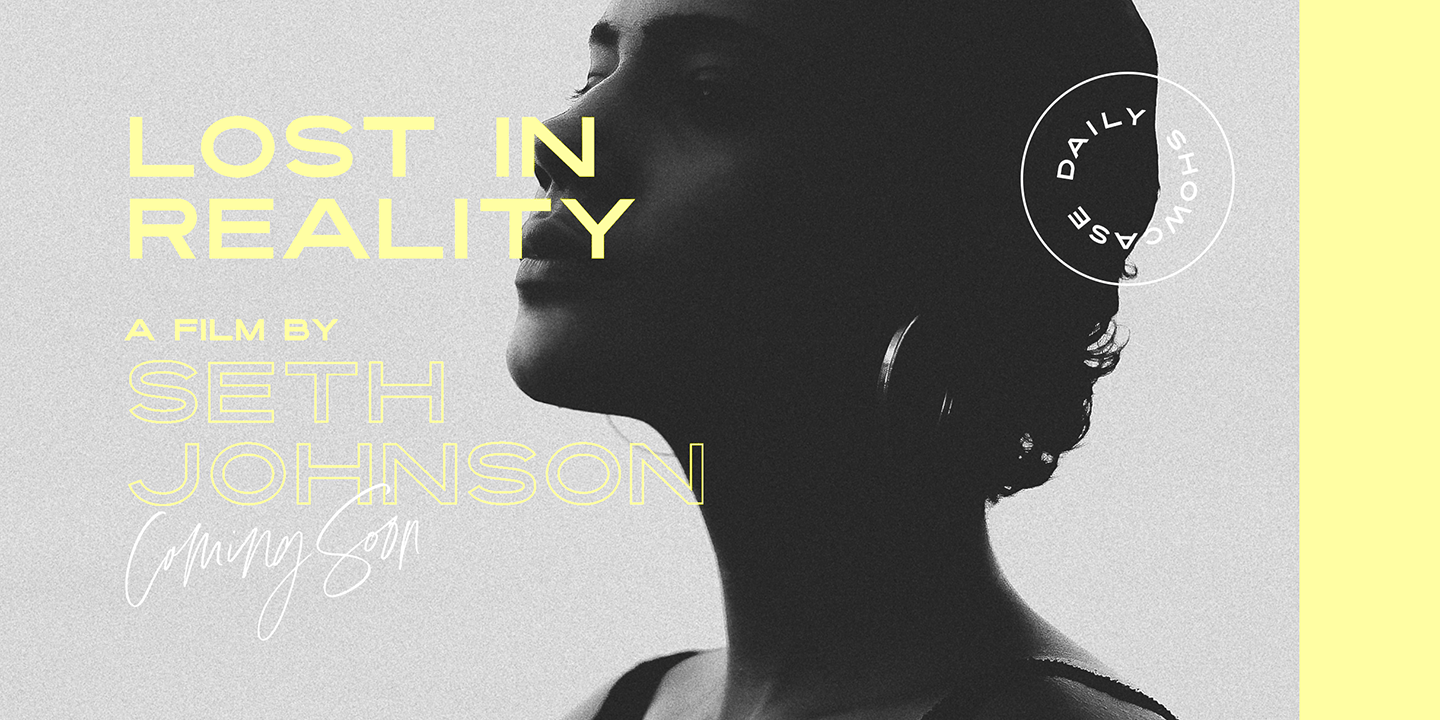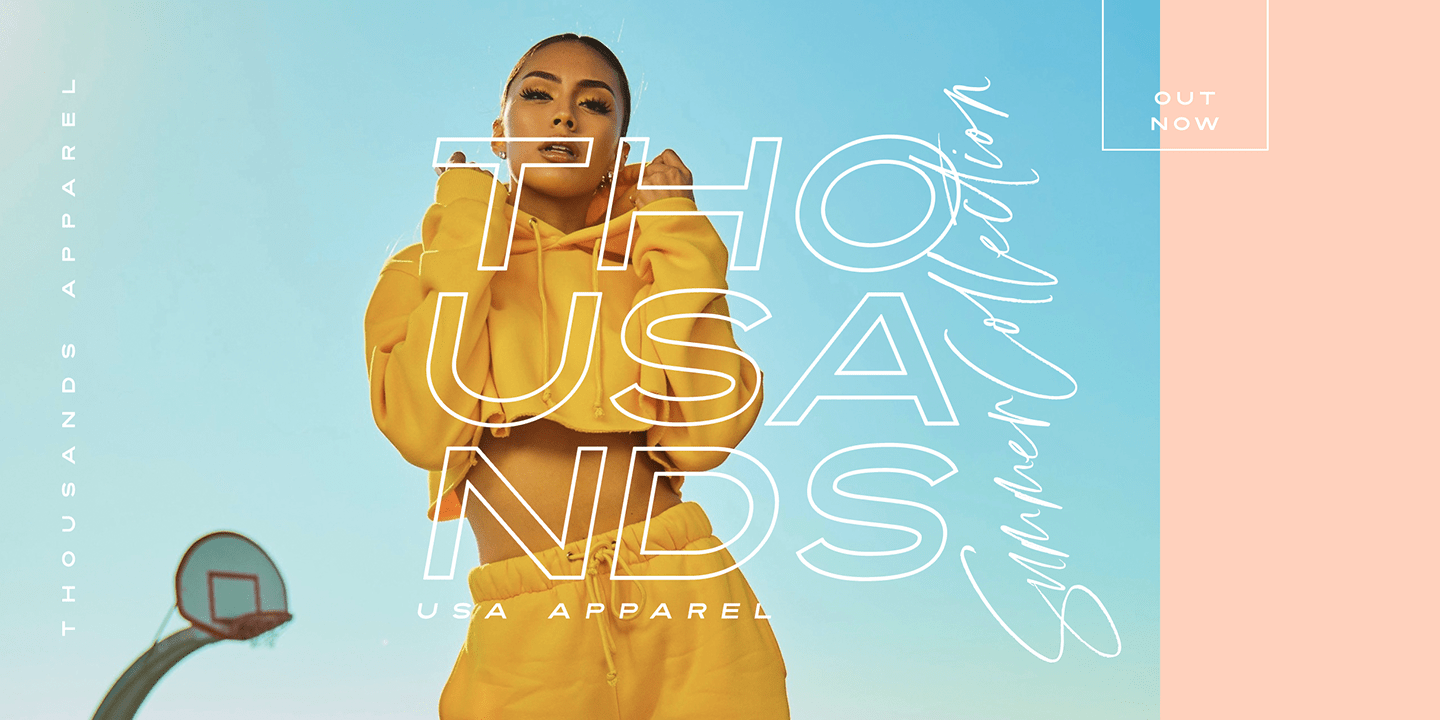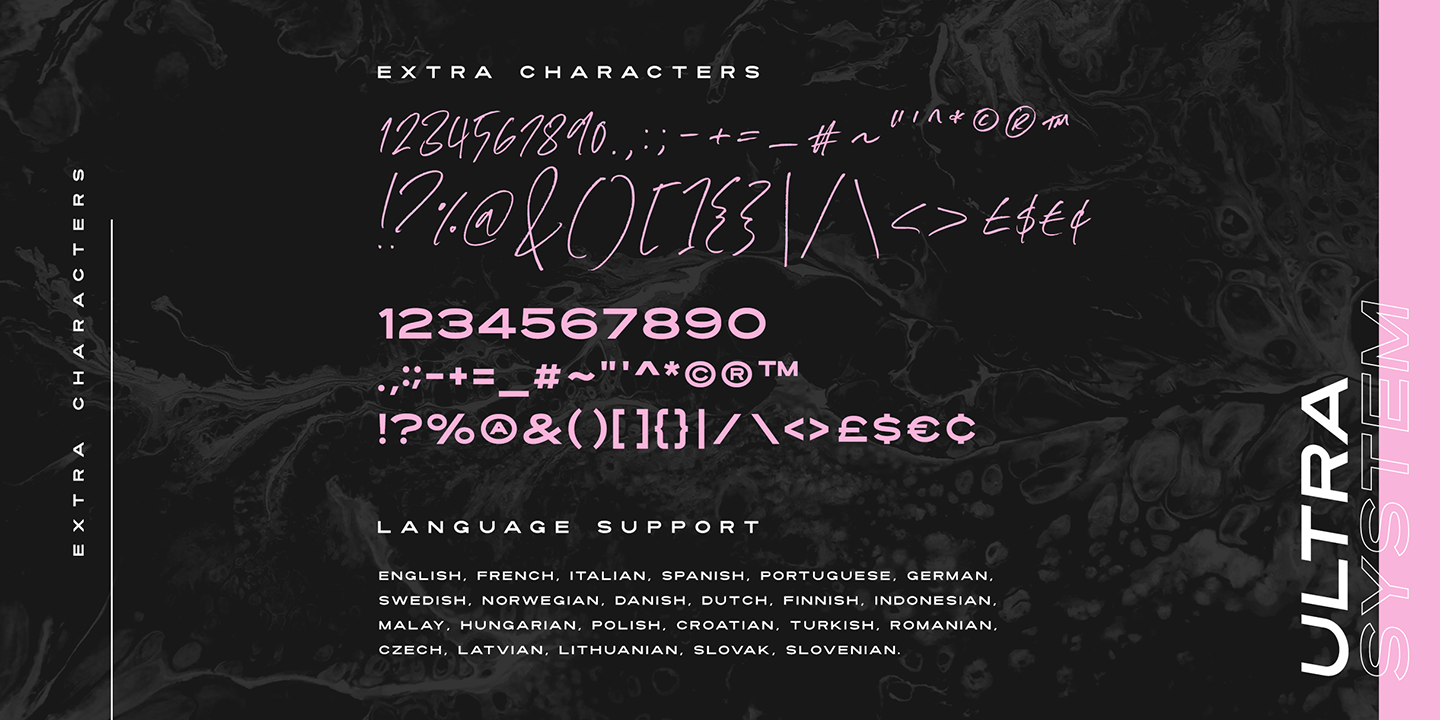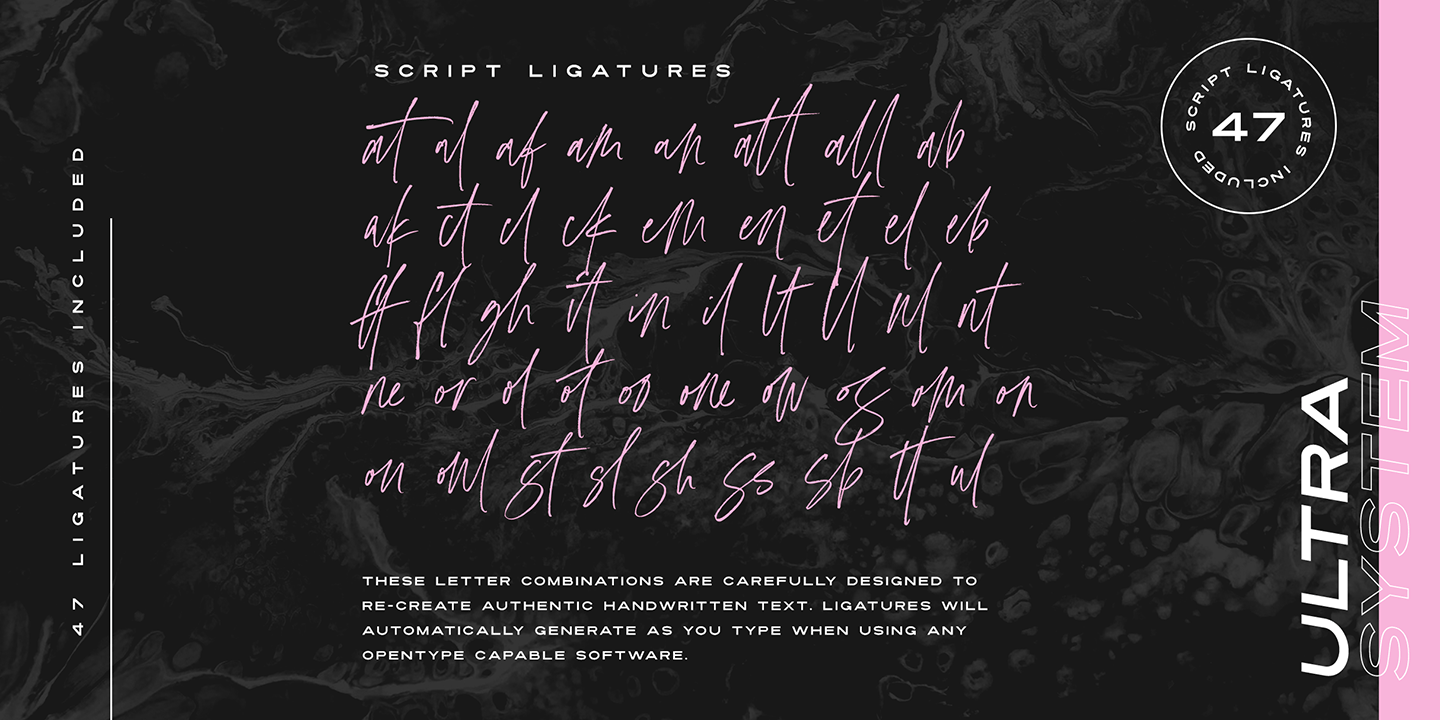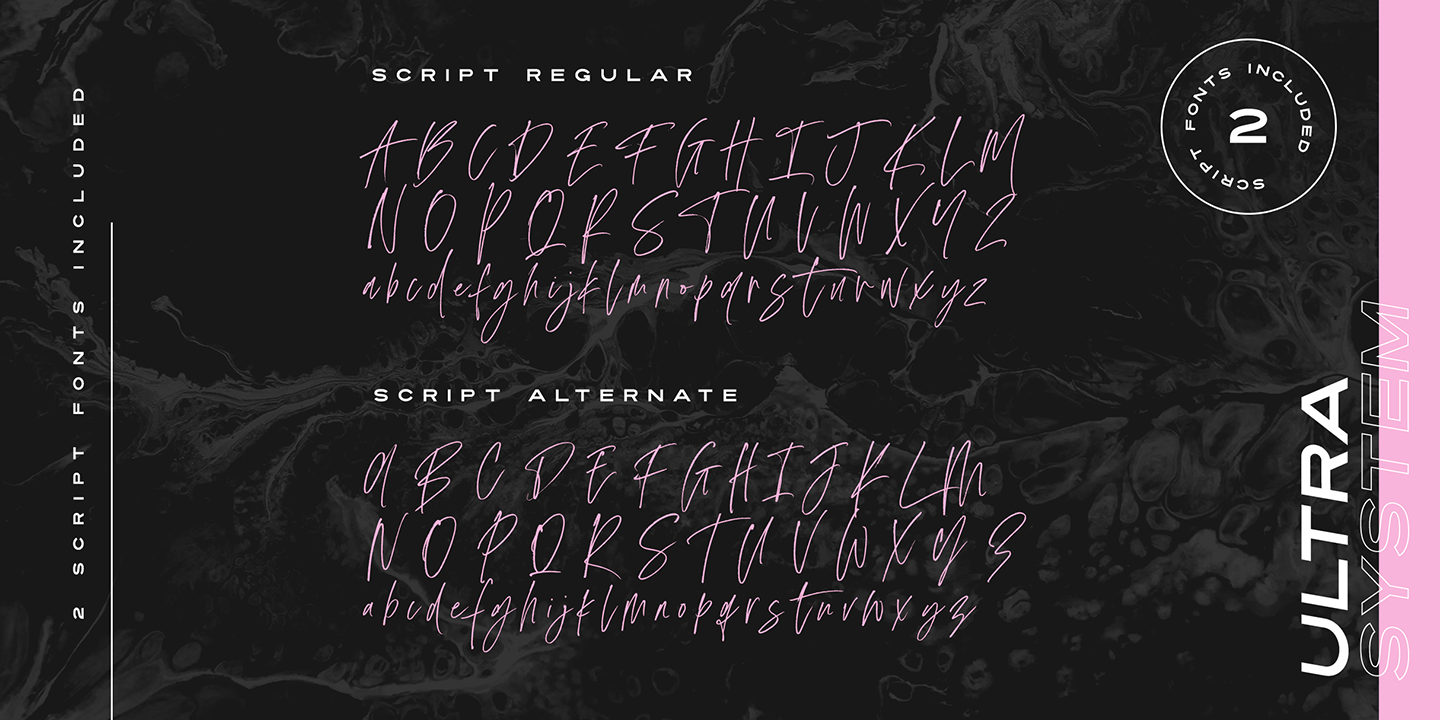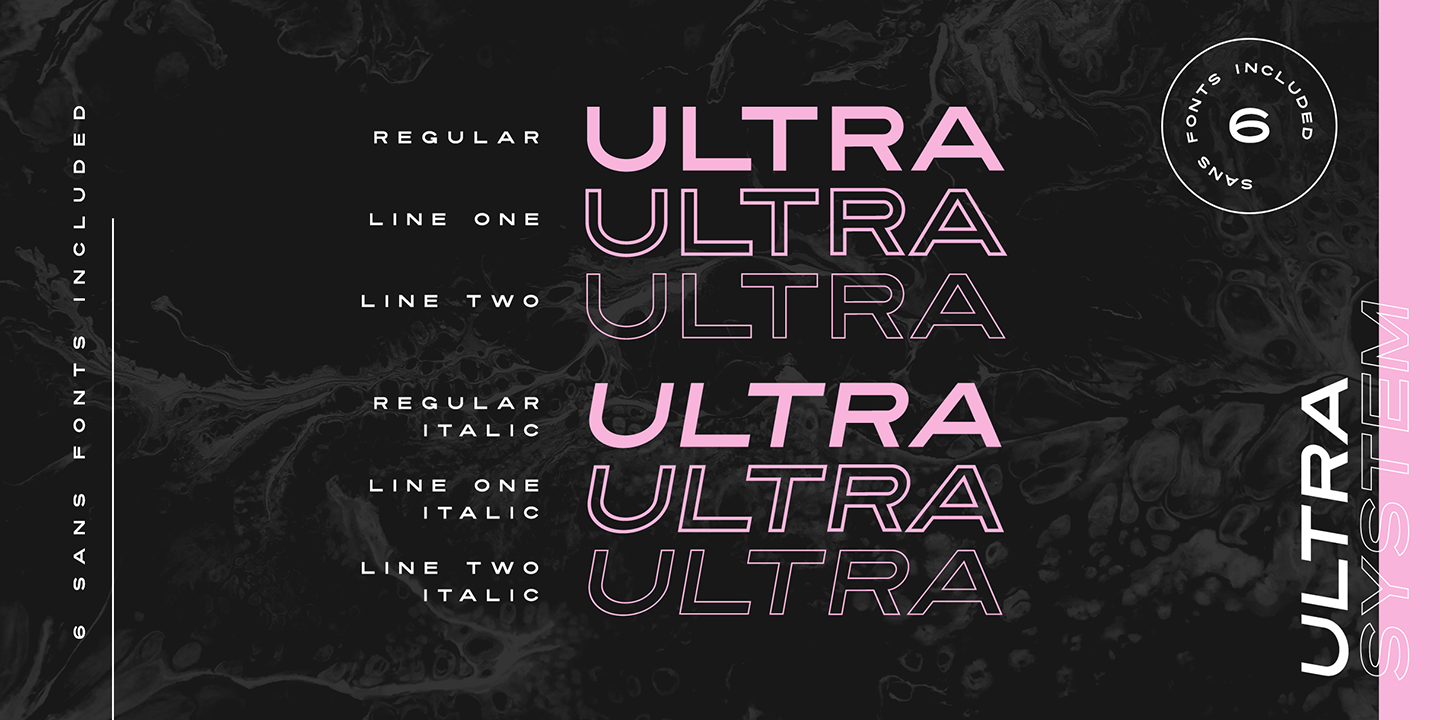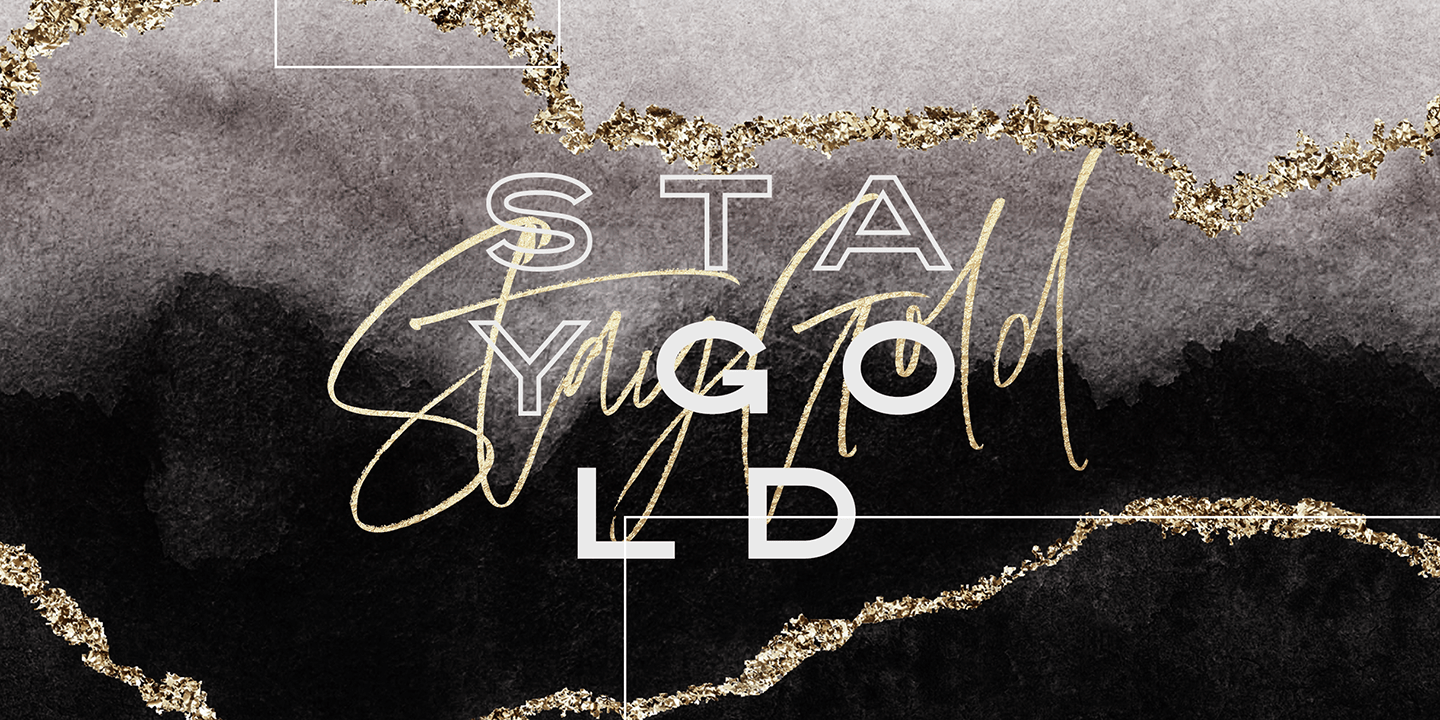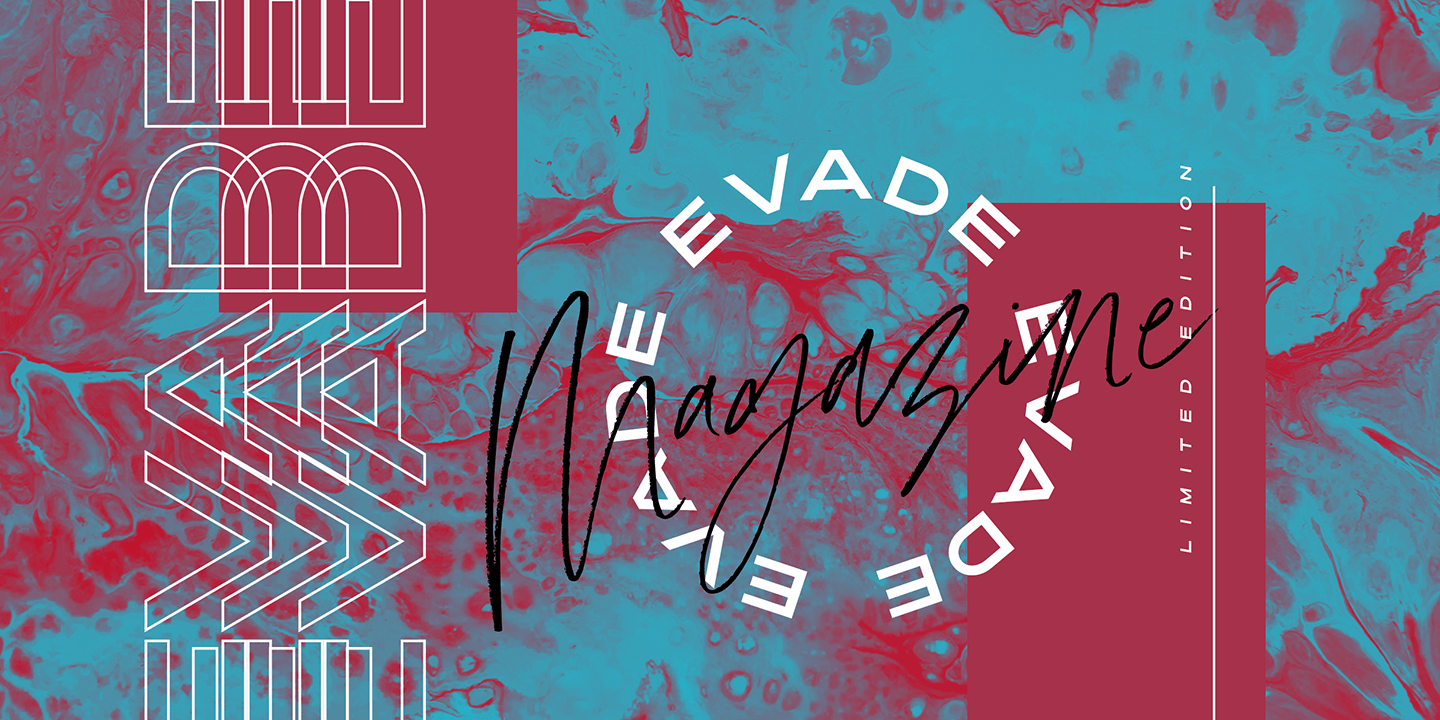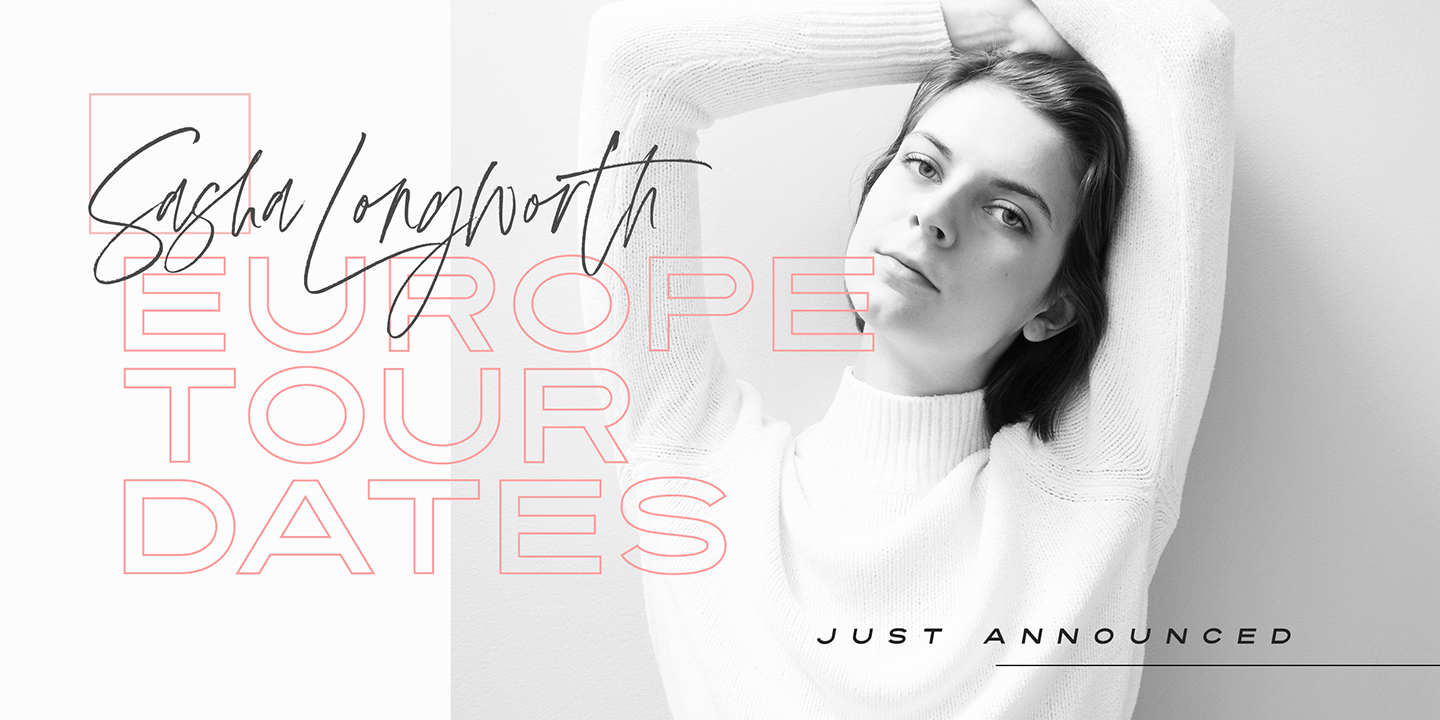
Ultra System
Font Family by Set Sail Studios
Buy NowIntroducing Ultra System; A modern exploration of 8 fonts, each carefully designed to naturally compliment one another. With 6 clean sans fonts and 2 textured script fonts, Ultra System gives you a variety of ways to combine and arrange each font, allowing you to create striking & modern typographic designs.
- Ultra System Script - A textured, bouncy & flowing marker script font containing upper & lowercase characters, numerals, and a large range of punctuation.
- Ultra System Script Alt - This is a second version of Ultra System Script, with a completely new set of both upper and lowercase characters. If you wanted to avoid letters looking the same each time to recreate a custom-made style, or try a different word shape, simply switch to this font for an additional layout option.
- Ultra System Sans - A wide, bold sans font containing uppercase only characters, numerals, and a large range of punctuation.
- Ultra System Sans Line One - A thick outlined version of Ultra System Sans, pair this with other Ultra System Sans fonts to add emphasis to words or phrases.
- Ultra System Sans Line Two - A thin outlined version of Ultra System Sans, pair this with other Ultra System Sans fonts to add emphasis to words or phrases.
- Ultra System Sans Italic - Italic variations are included for all 3 Ultra System Sans fonts.